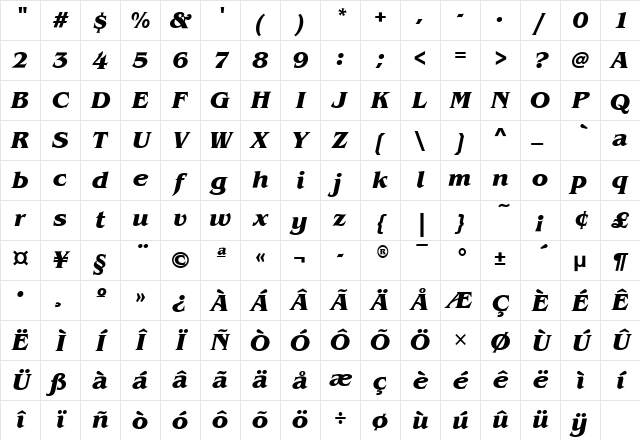
BenguiatITC Bold Italic Free Font
BenguiatITC Bold Italic
Complete BenguiatITC Bold Italic glyph index. Displaying only characters natively supported by BenguiatITC Bold Italic font.
Design Context for BenguiatITC
BenguiatITC is a composed and adaptable typeface that performs quietly and consistently across a wide range of design contexts. The slanted form adds forward momentum and visual energy. Its bold stroke weight gives it real presence on the page.
Pro Tip: Use BenguiatITC for emphasis, pull quotes, and subheadings where its slanted energy can add rhythm to the layout.
Who designed the BenguiatITC Bold Italic font?